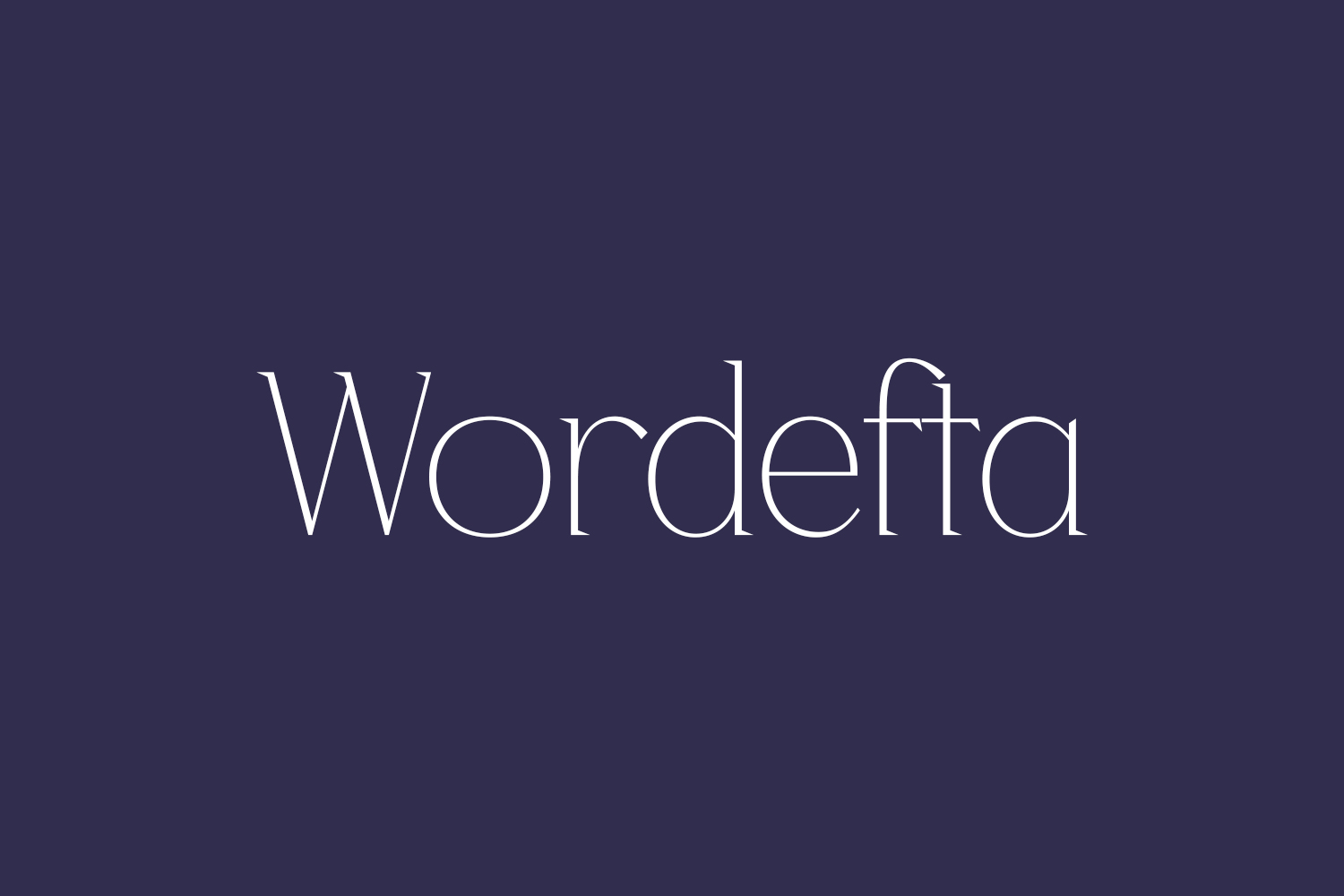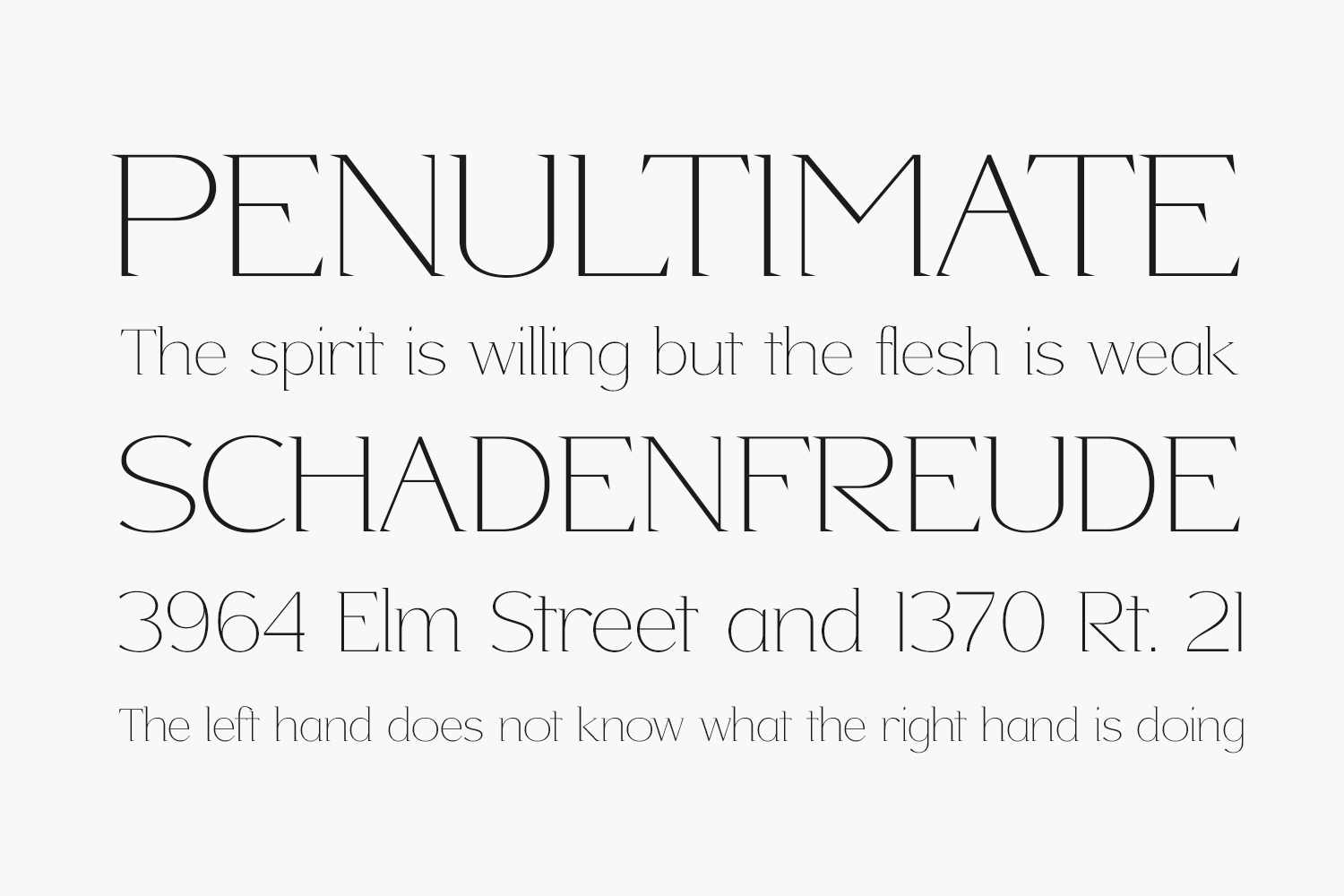
Wordefta Free Font embodies sophistication and charm, boasting a timeless serif style infused with contemporary flair. Tailored for luxury and elegance, particularly ideal for feminine-themed projects, this font seamlessly elevates modern and chic design endeavors. Download the font for free if you need it for personal use or purchase the full version for commercial use.